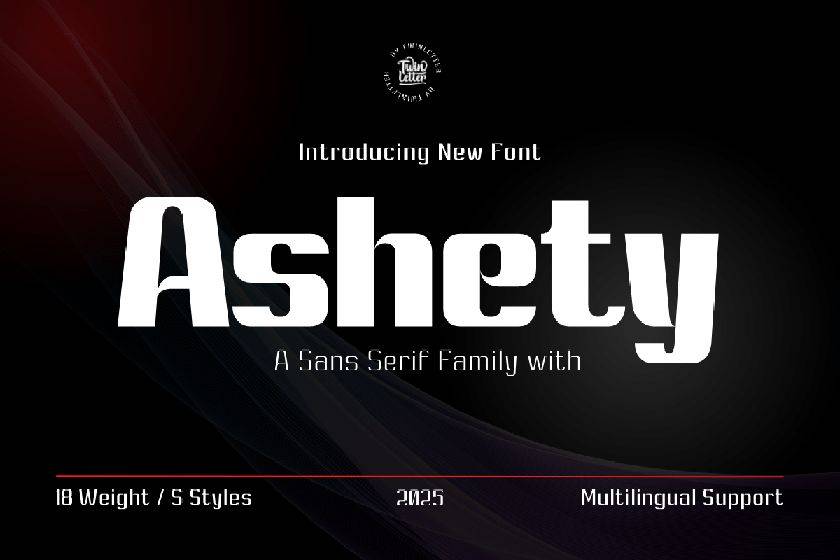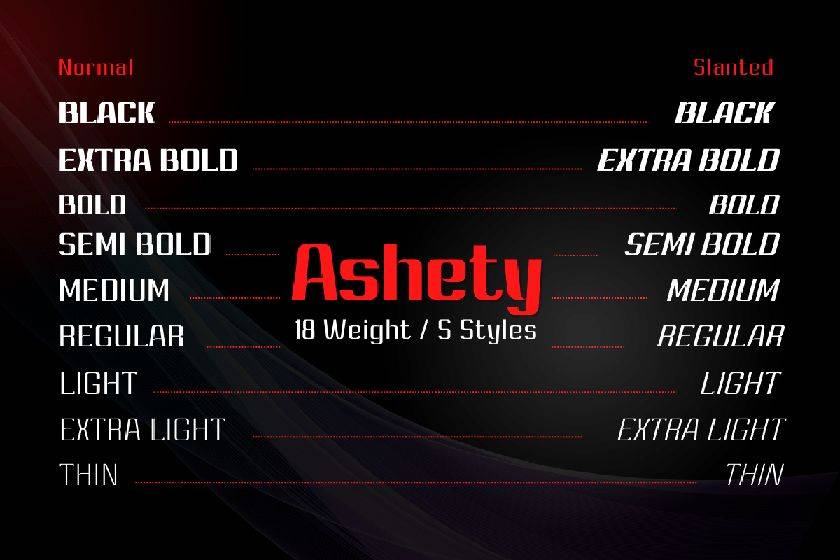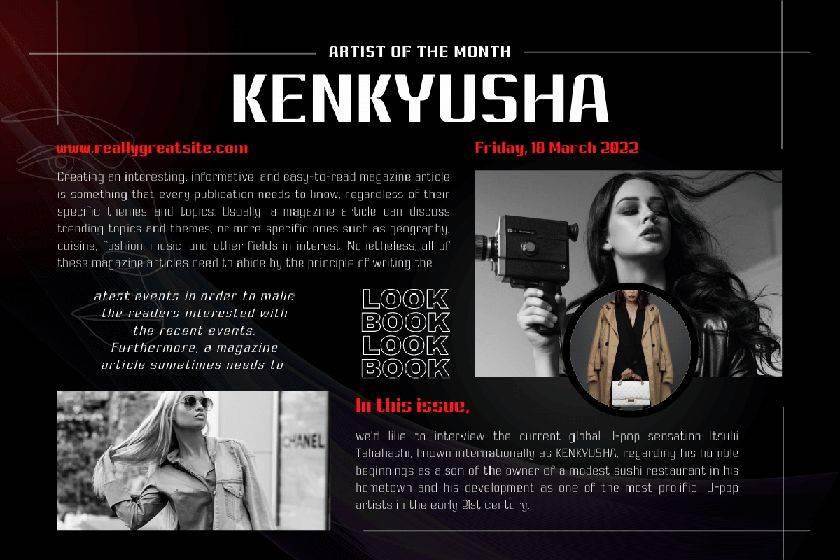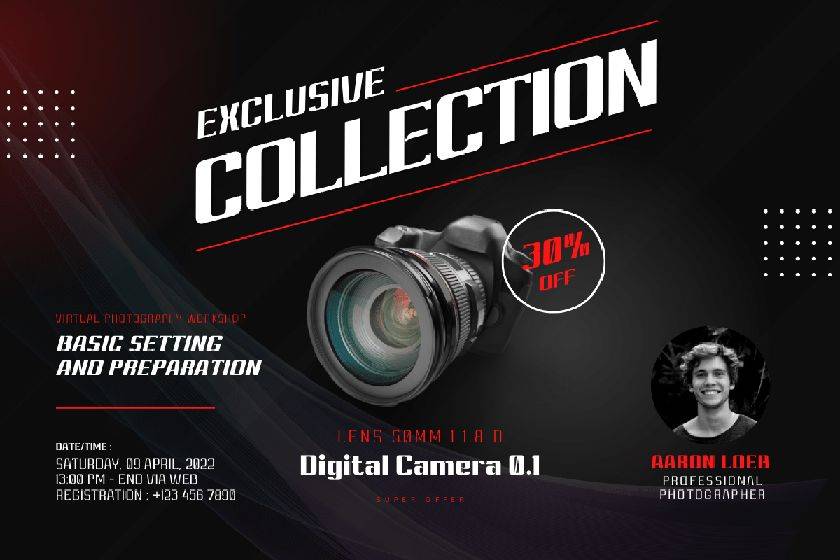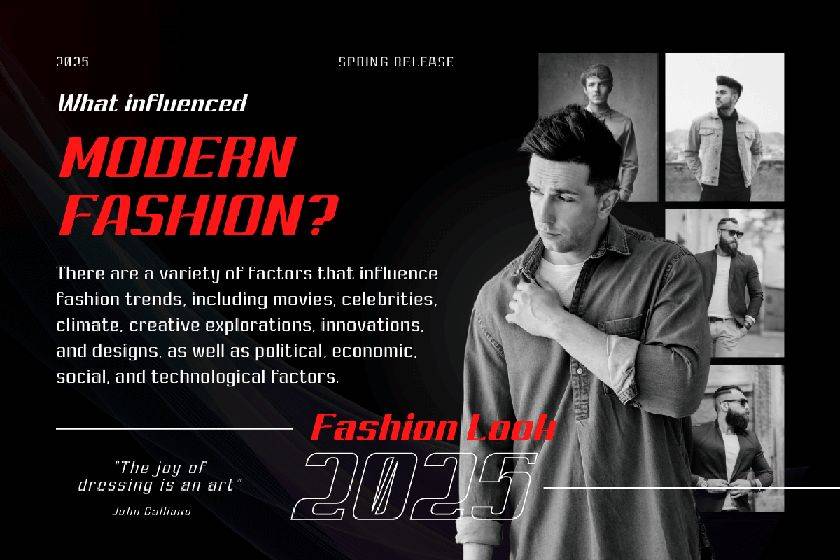
Ashety is a bold, condensed sans serif font with a high x-height and distinctive geometric shapes that create a strong, modern appearance. Its sharp edges and unique letterforms give it an industrial, confident personality, making it ideal for headlines, branding, and editorial design that require a striking and memorable impact. This font works well for projects needing a contemporary and assertive look, such as fashion logos, posters, and packaging.
Ashety Font
About Ashety Font
| Font family | Ashety Font |
| Designer | Afri |